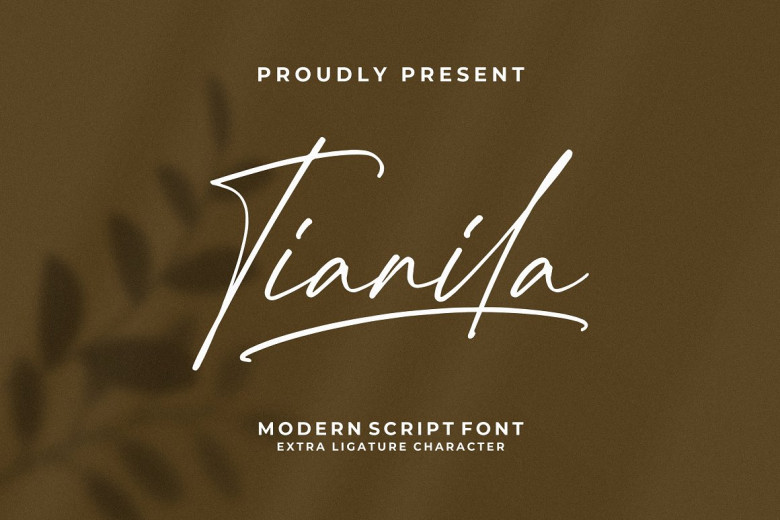
Tianila Font
Integritype Studio’s Tianila Modern Script font is a premium Modern Script font suitable for many projects such as logos and branding, homewares design, product packaging, mug quotes, posters shopping bags t shirts cover books business cards invitation cards greeting cards labels photography watermarks special events and any other high quality application that requires premium quality fonts.
Tianila Handwritten Script Font